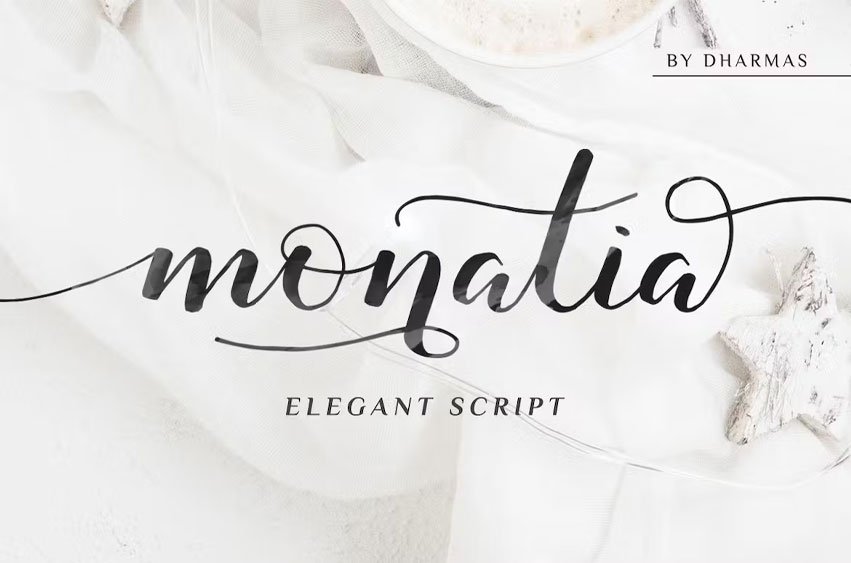
Monatia Font Introducing the elegant new Monatia Elegant Script! For those of you who need a touch of elegance and modernity for your designs, this font was created for you!
Monatia was built with OpenType features and includes beginning and ending swashes, alternate swash characters for most lowercase letters, numbers, punctuation, alternates, and ligatures and it also supports other languages